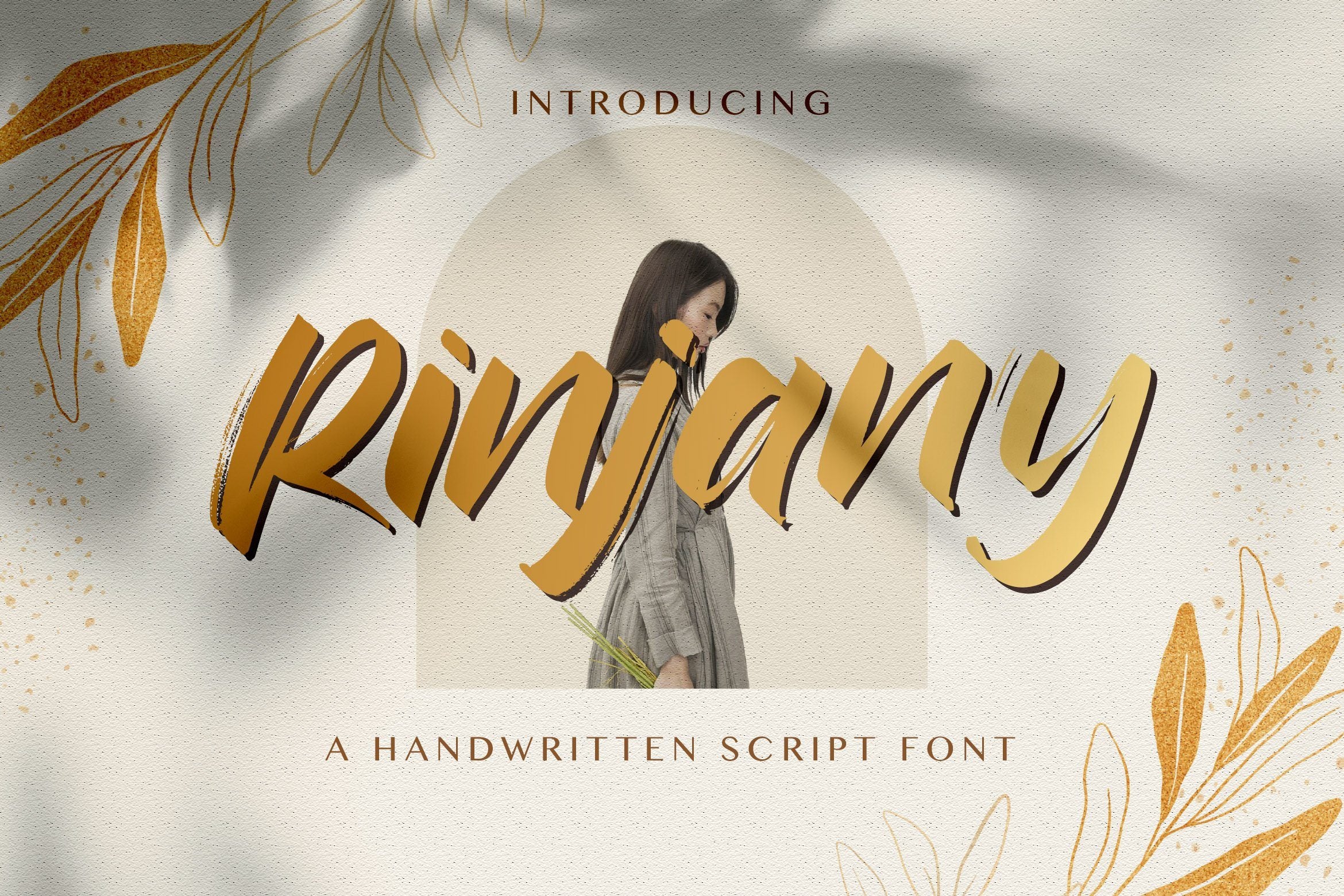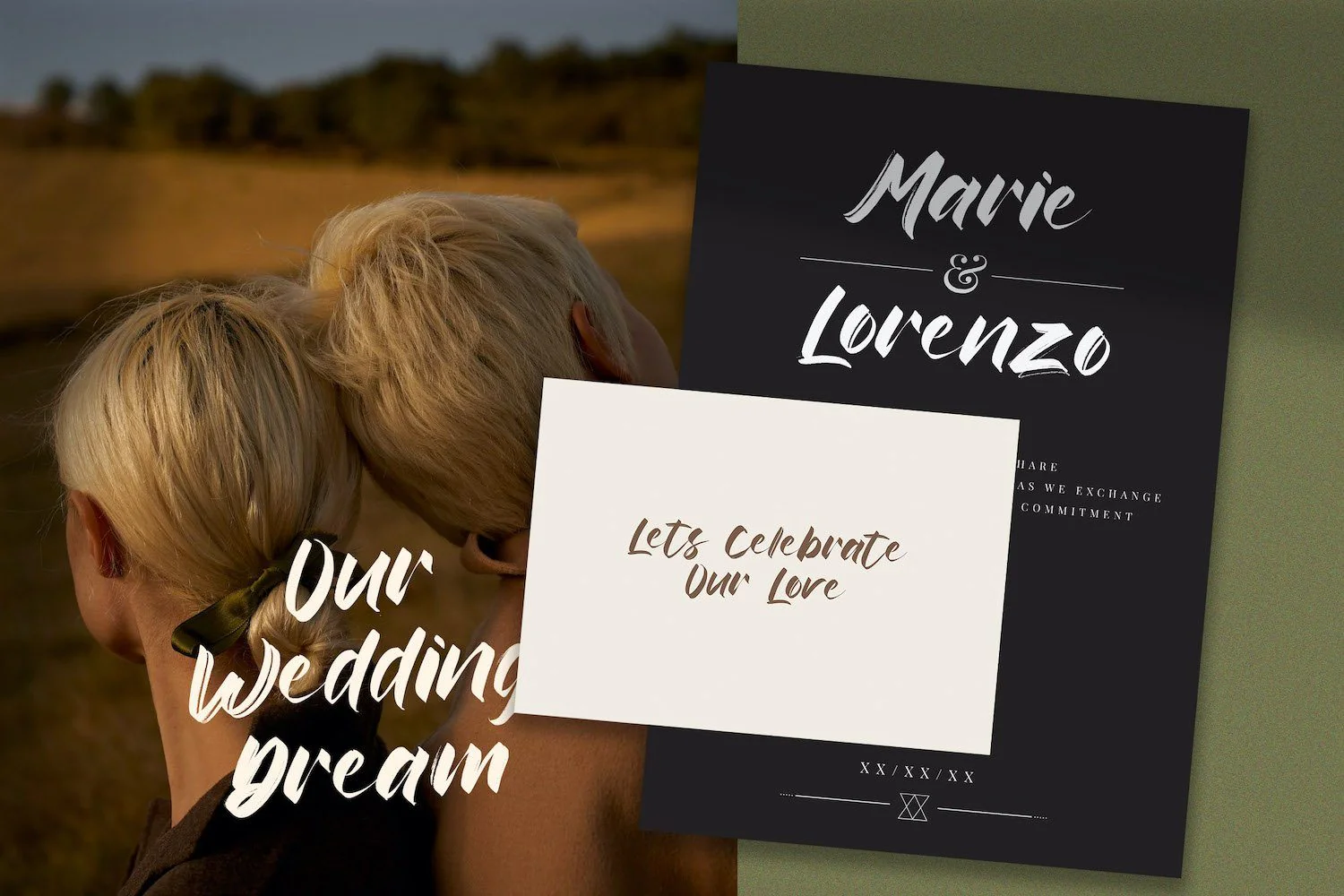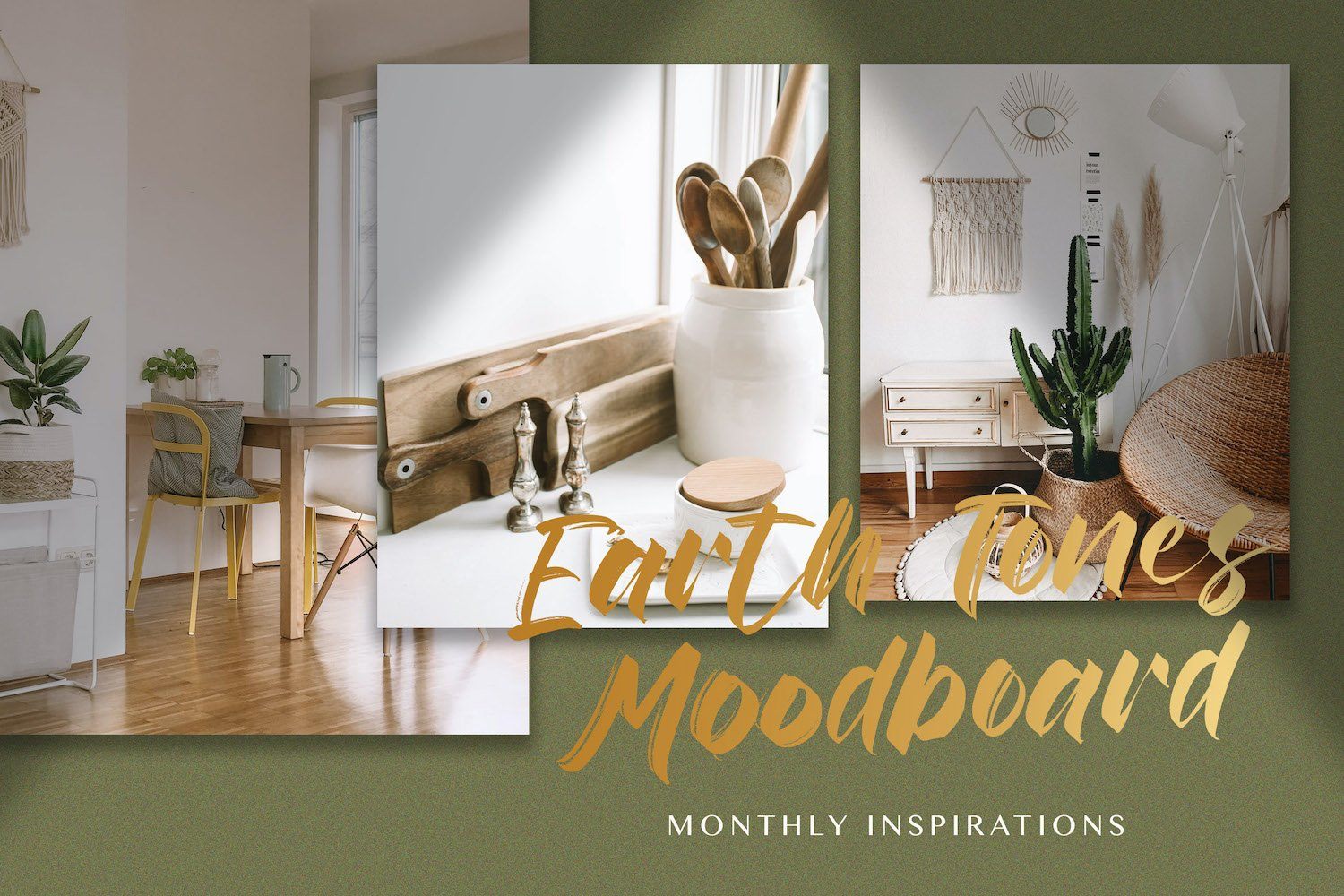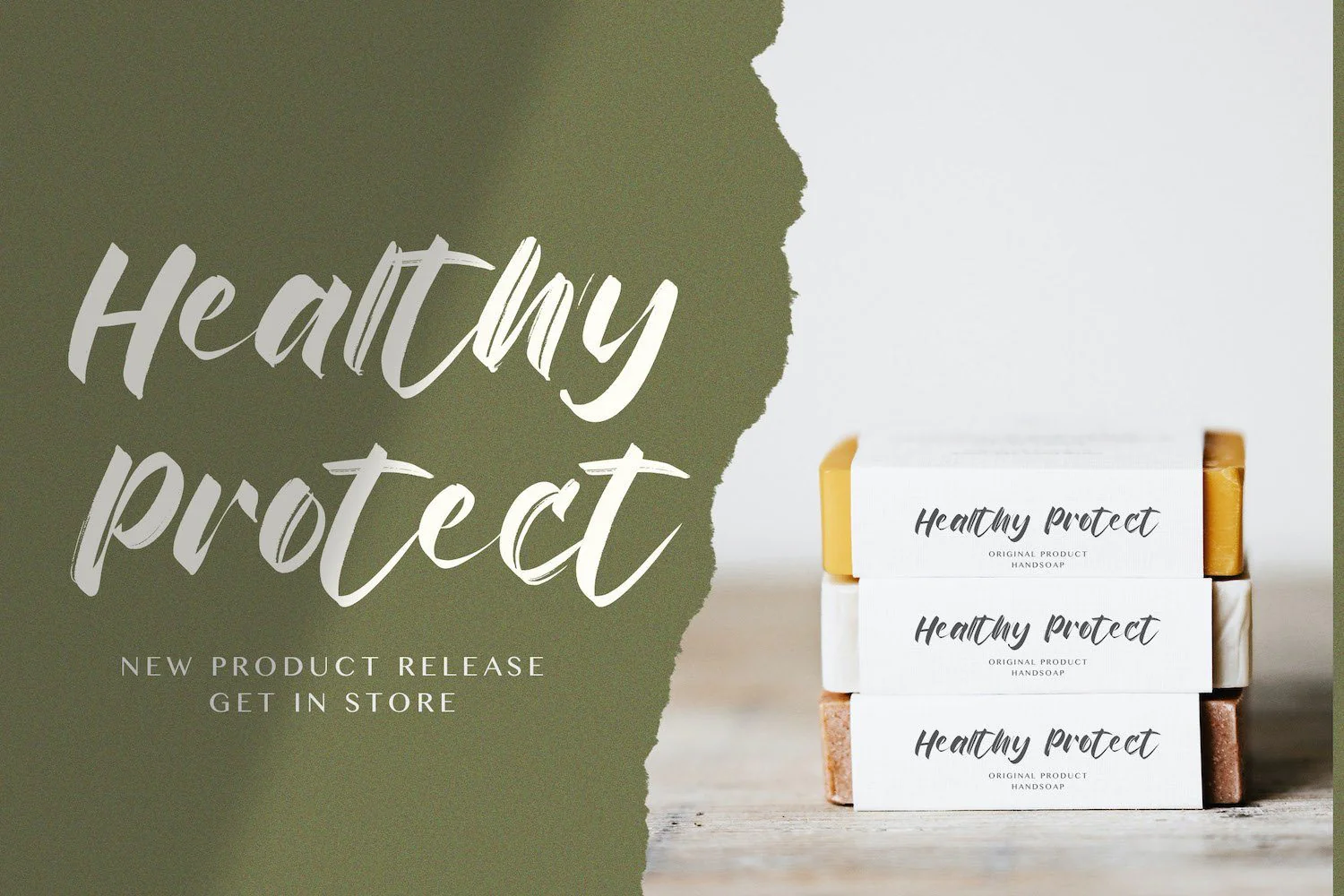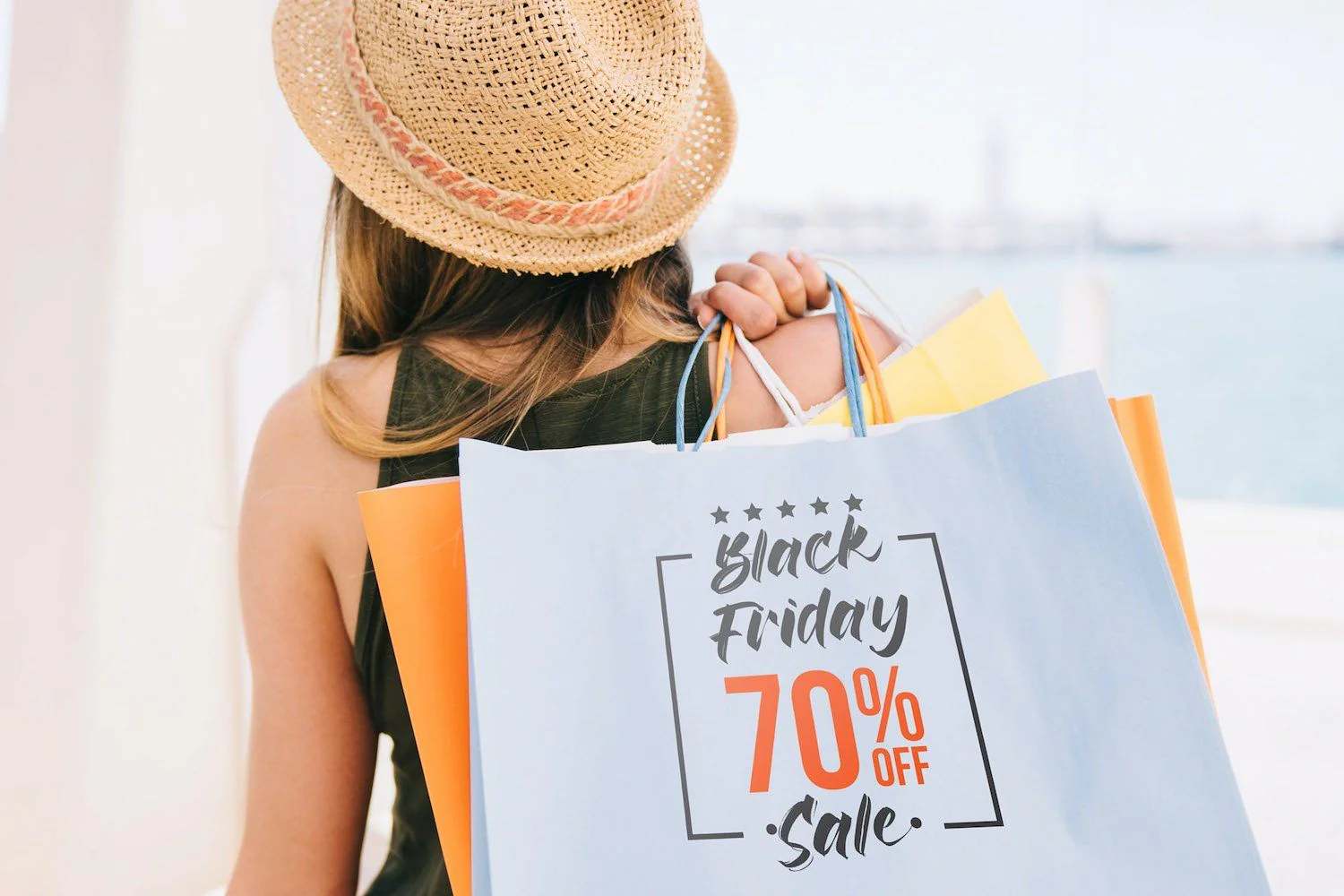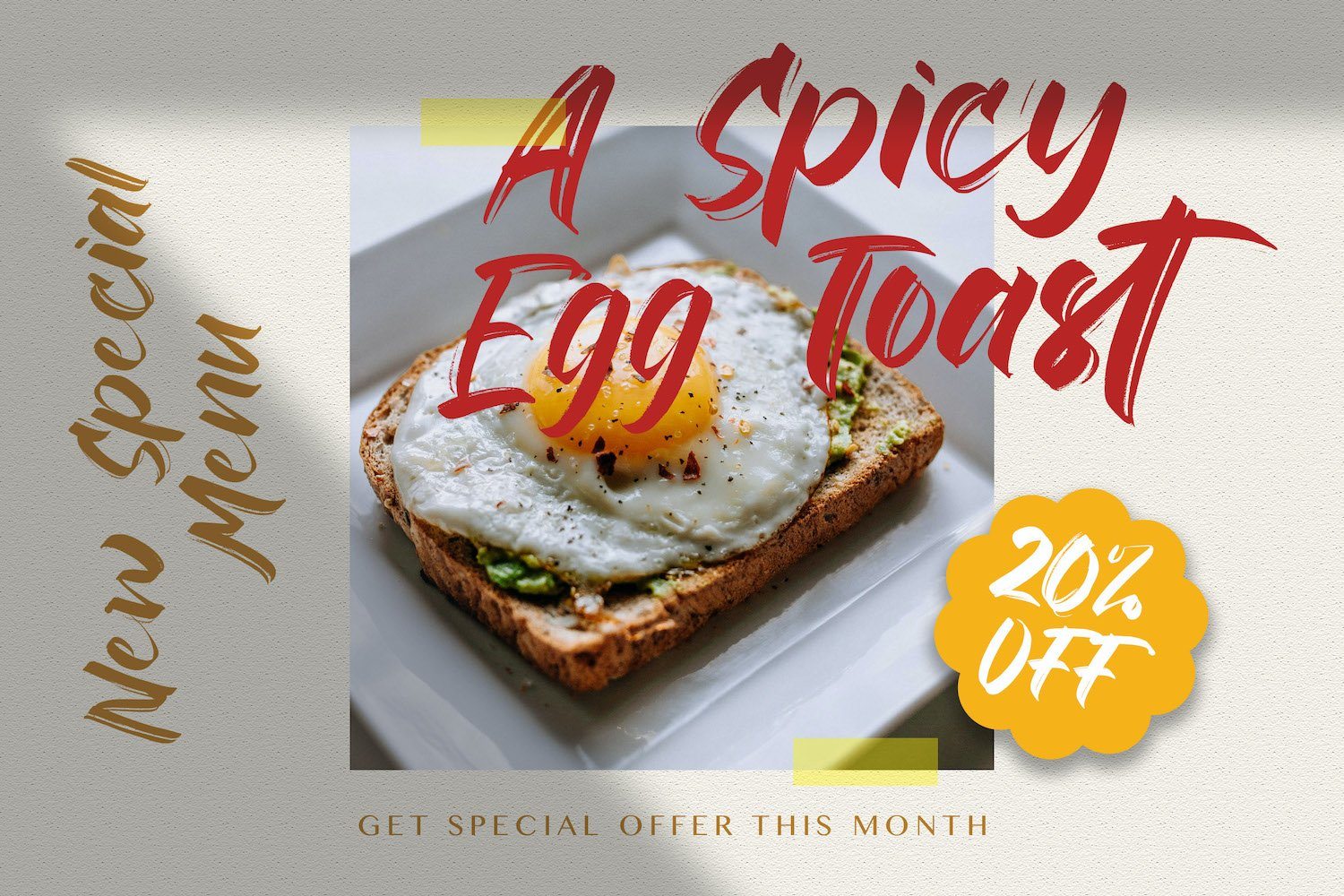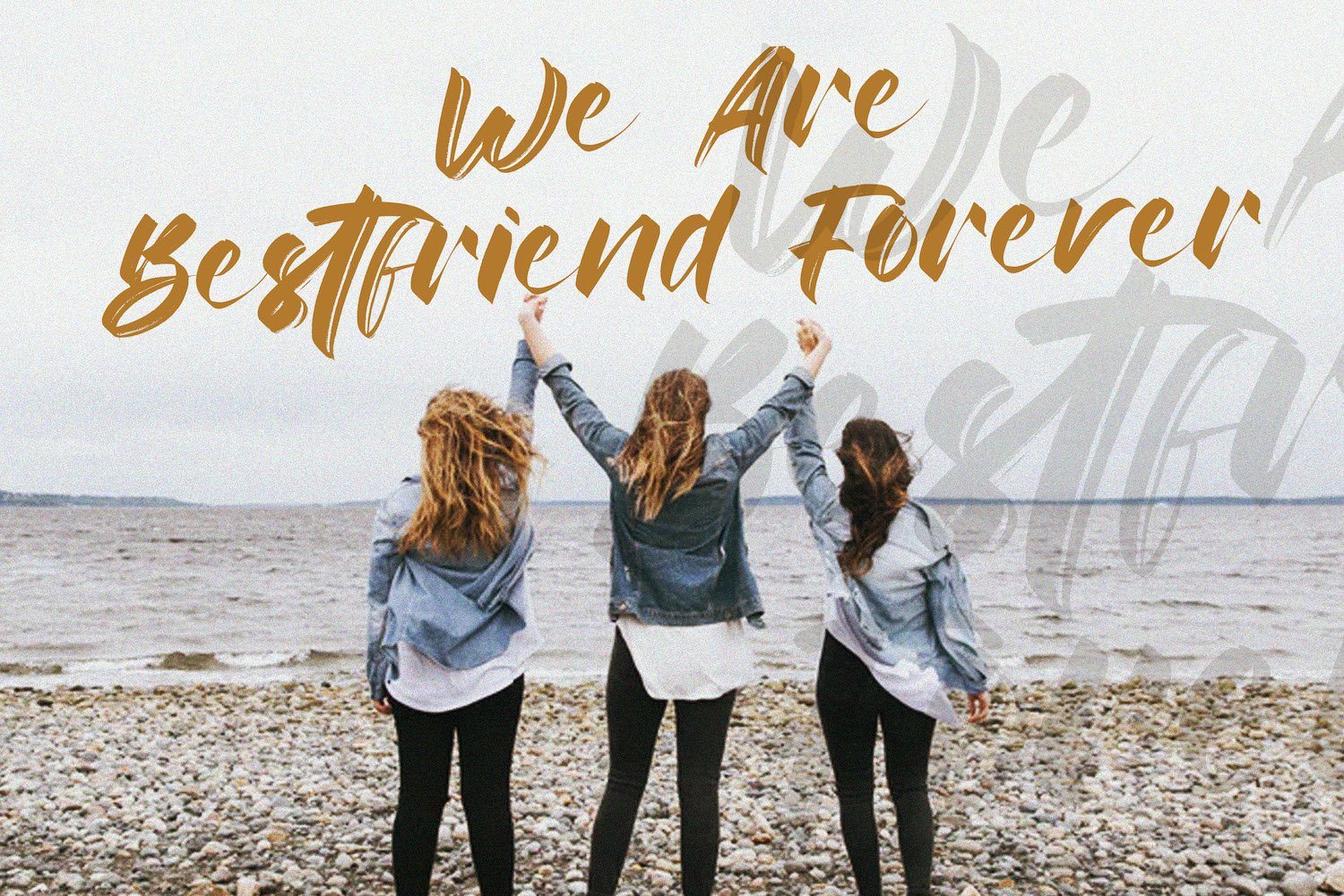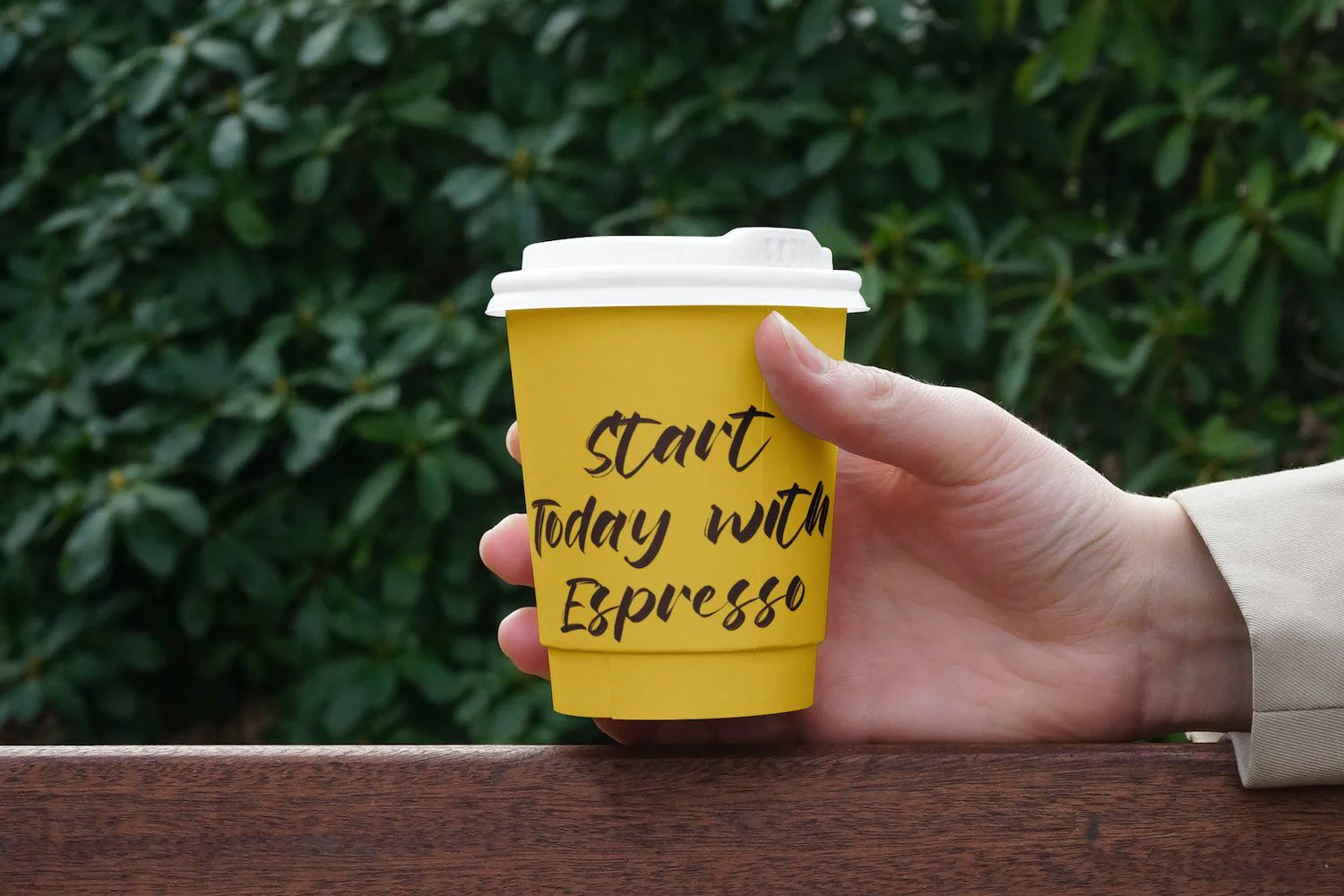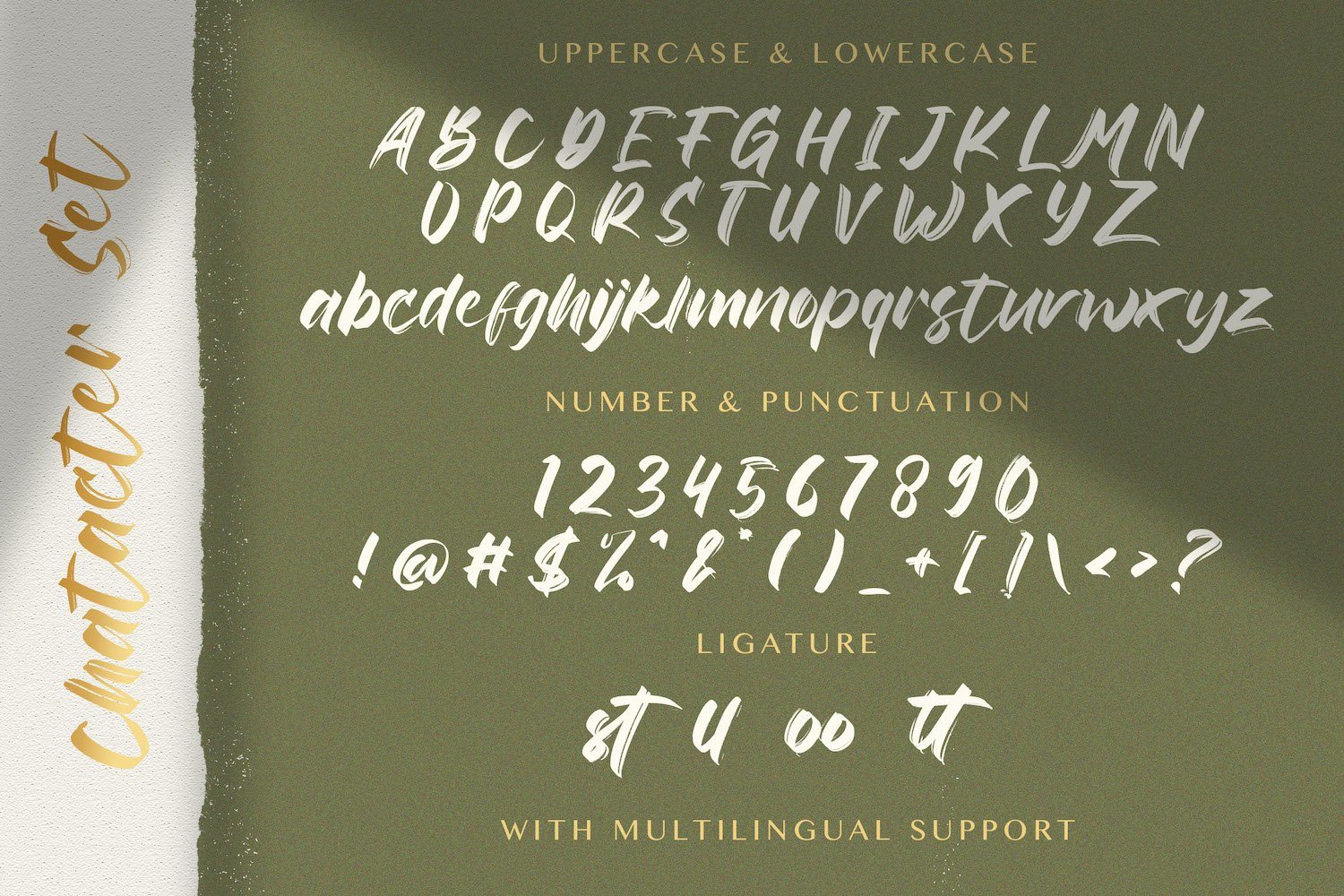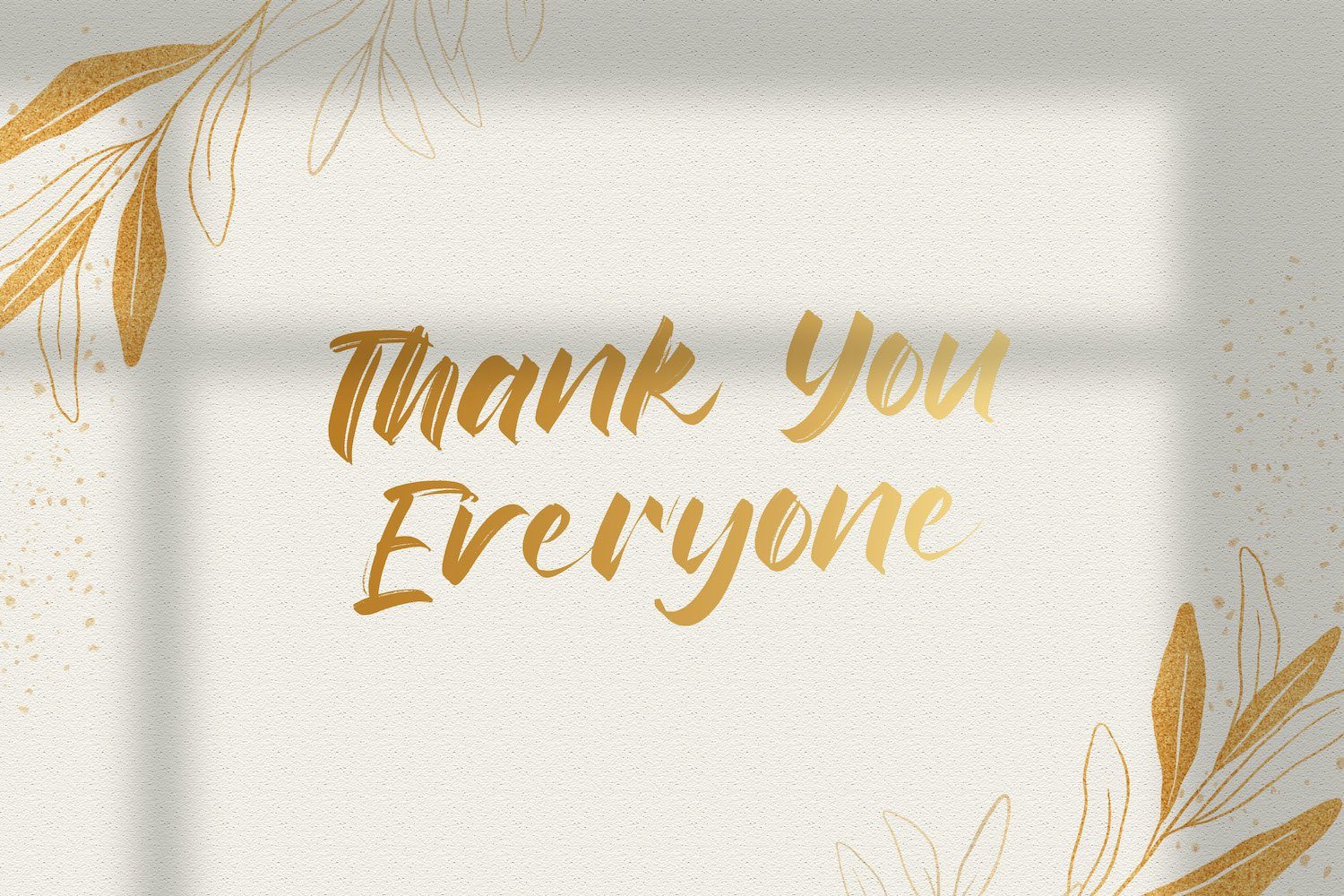
Rinjany - Textured Brush Font
Introducing Rinjany - Textured Brush Font
Rinjany is a textured handbrush font. Get inspired by its unique and beautiful style and add it to your favorite designs!
Introducing Rinjany - Textured Brush Font
Rinjany is a textured handbrush font. Get inspired by its unique and beautiful style and add it to your favorite designs!